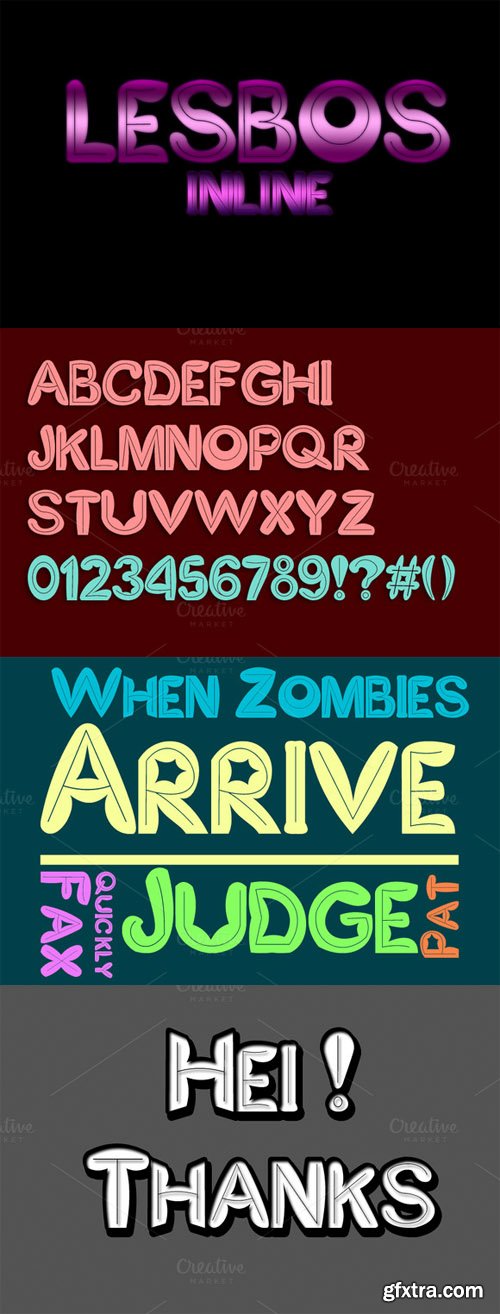
CM - Lesbos - Inline 362829
Lesbos inline is reguler font that i made whit a mixture of bold and electronic sausage. consist with A-Z and numbering . This font is very suitable to the make fonts band , design tshirt , text on the poster , banner text , stickers , text product , letter , fashion , etc . Get something new in this font guys! Happy Design ^_^